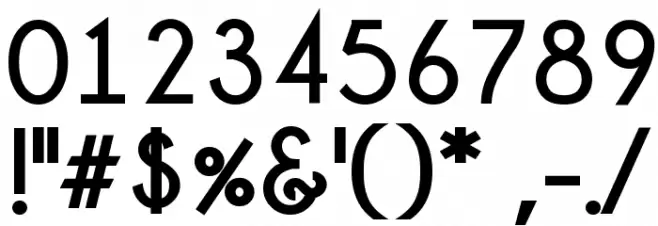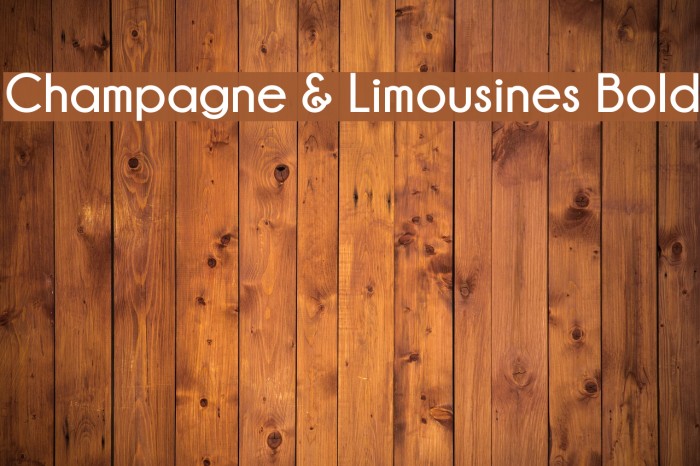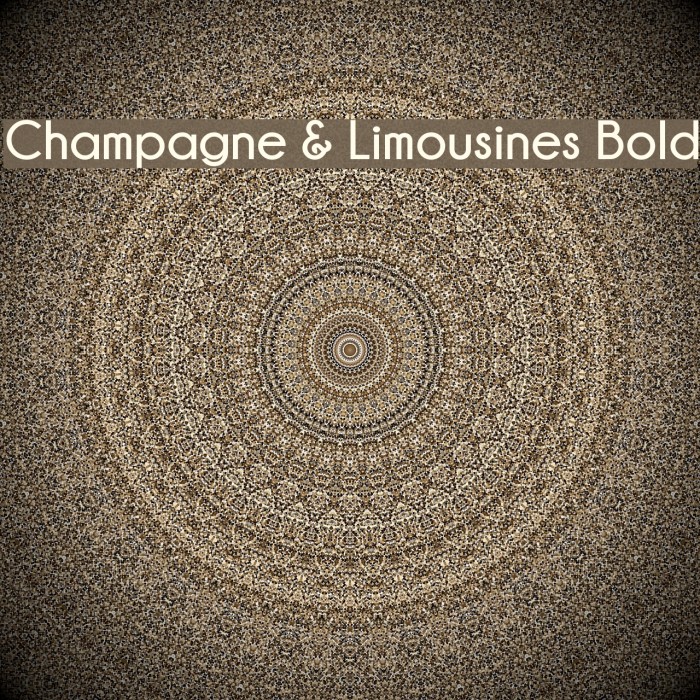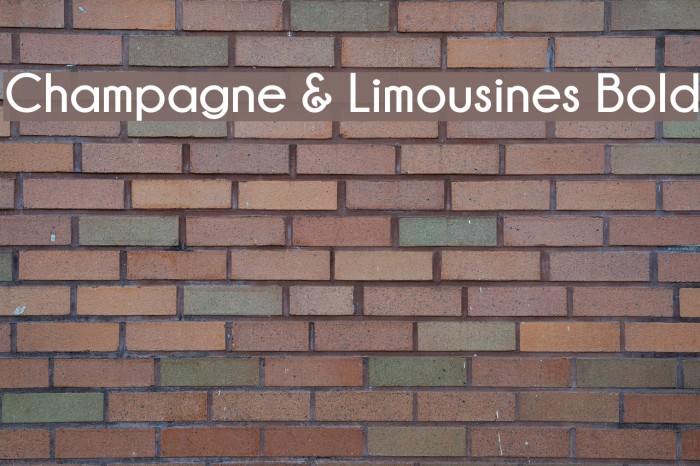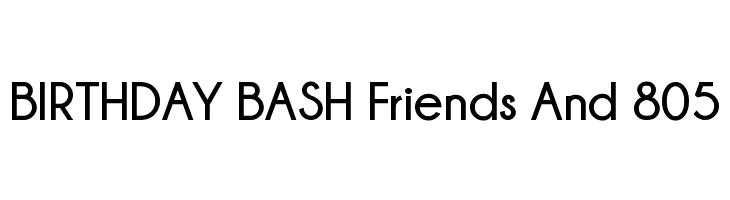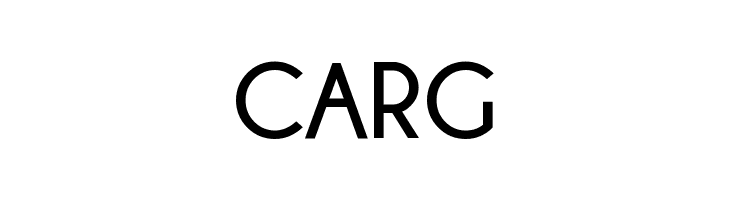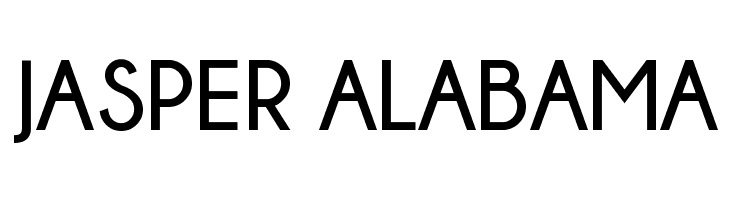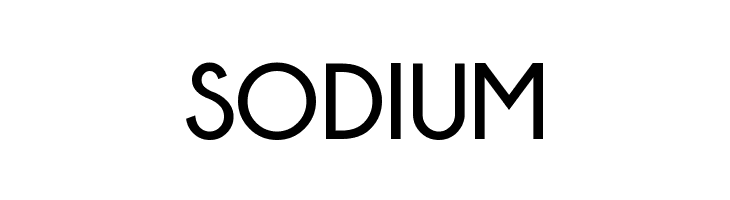
Champagne & Limousines Bold Font
Champagne & Limousines Bold Description
This font presents a clean and modern aesthetic with a geometric structure. The characters are bold and well-defined, offering a strong visual impact. The uppercase letters are uniform in height, while the lowercase letters maintain a consistent baseline, enhancing readability. The numerals are clear and distinct, matching the overall style of the alphabet. Special characters are included, providing versatility for various applications. The font's design is straightforward yet elegant, making it suitable for a wide range of uses.
A bold, modern font with a clean, geometric design from Sans Serif fonts.
- Proposed Projects: Ideal for branding, advertising, headlines, and digital media where a strong, modern presence is desired.
- Use Case: Headlines, Logos, Branding